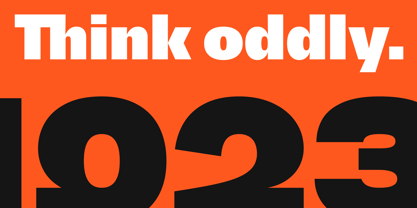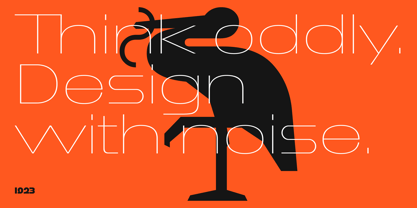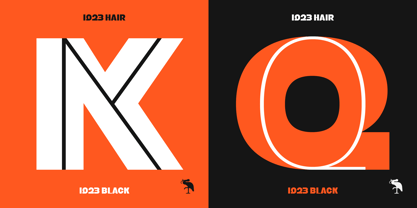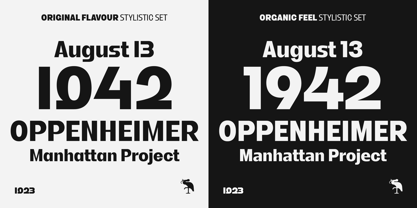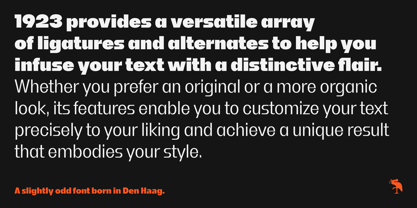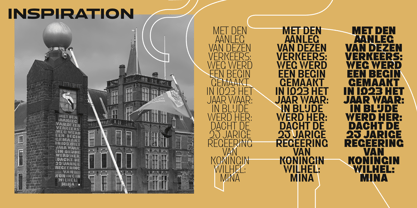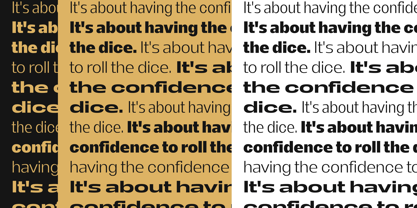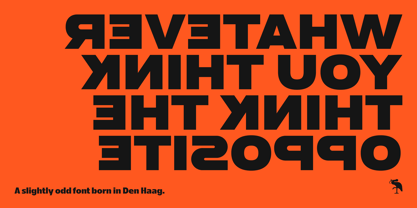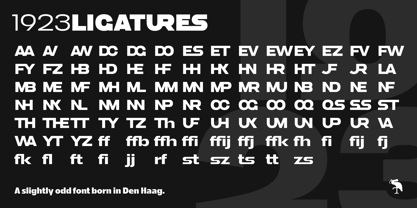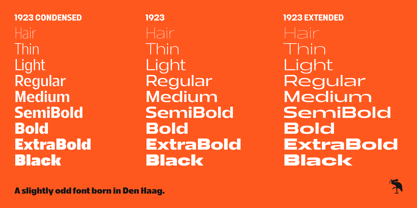
1923
Die Schriftfamilie 1923 wurde von Joel Vilas Boas entworfen und von JVB veröffentlicht. 1923 enthält 27 Stile und Familienpaketoptionen. Mehr über diese Familie
Think oddly.
In the heart of Den Haag stands a brick pillar marking the beginning of a new road in 1923 — the same year Queen Wilhelmina’s 25th government was joyfully celebrated. This structure, a testament to history and endurance, embodies the spirit of this city. Inspired by Den Haag's rich heritage and this enduring pillar, 1923 embraces asymmetry and unconventional forms, presenting an amalgamation of peculiar shapes and a set of numerals that spark curiosity and inspire unconventional creativity. The robust strokes of the typeface echo the strength of the bricks, while the elegant curves reflect the grace and dignity associated with royalty.
1923 provides a versatile array of ligatures and alternates to help you infuse your text with a distinctive flair. Whether you prefer an original or a more organic look, its features enable you to customize your text precisely to your liking and achieve a unique result that embodies your style. 'Think Oddly' serves as a guiding principle, encouraging a departure from the commonplace and fostering an environment where unconventional shapes and innovative design concepts flourish.